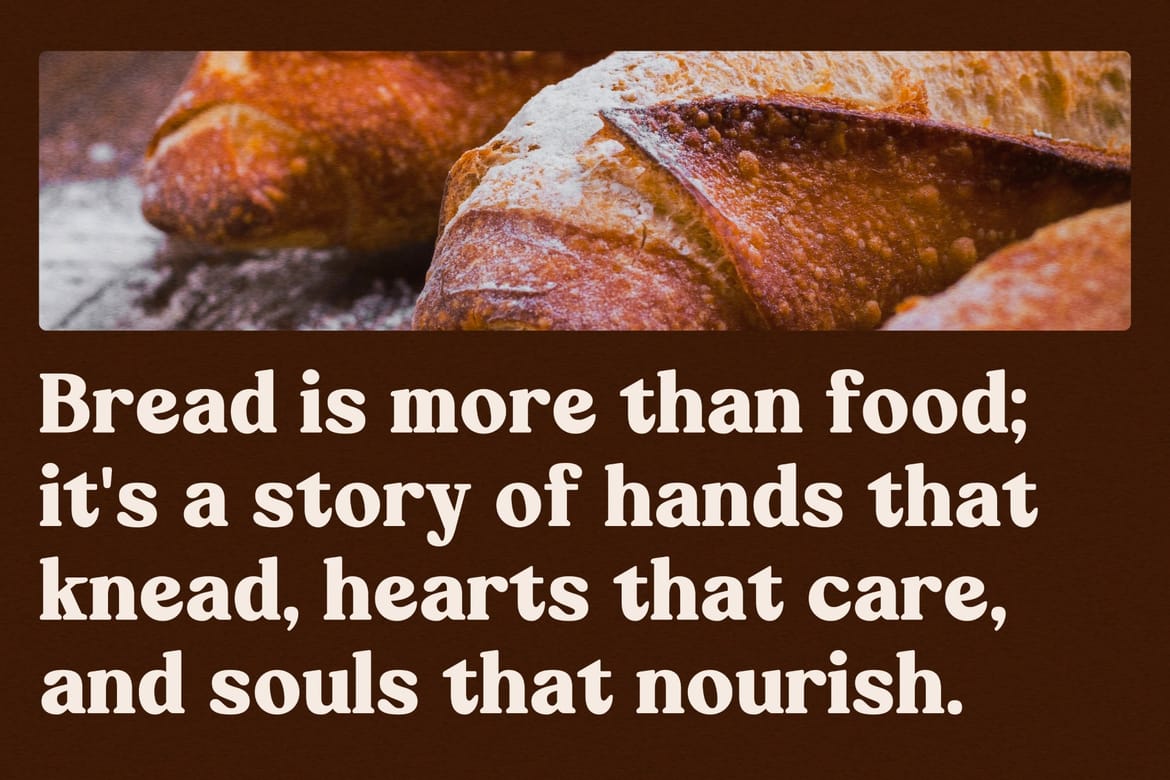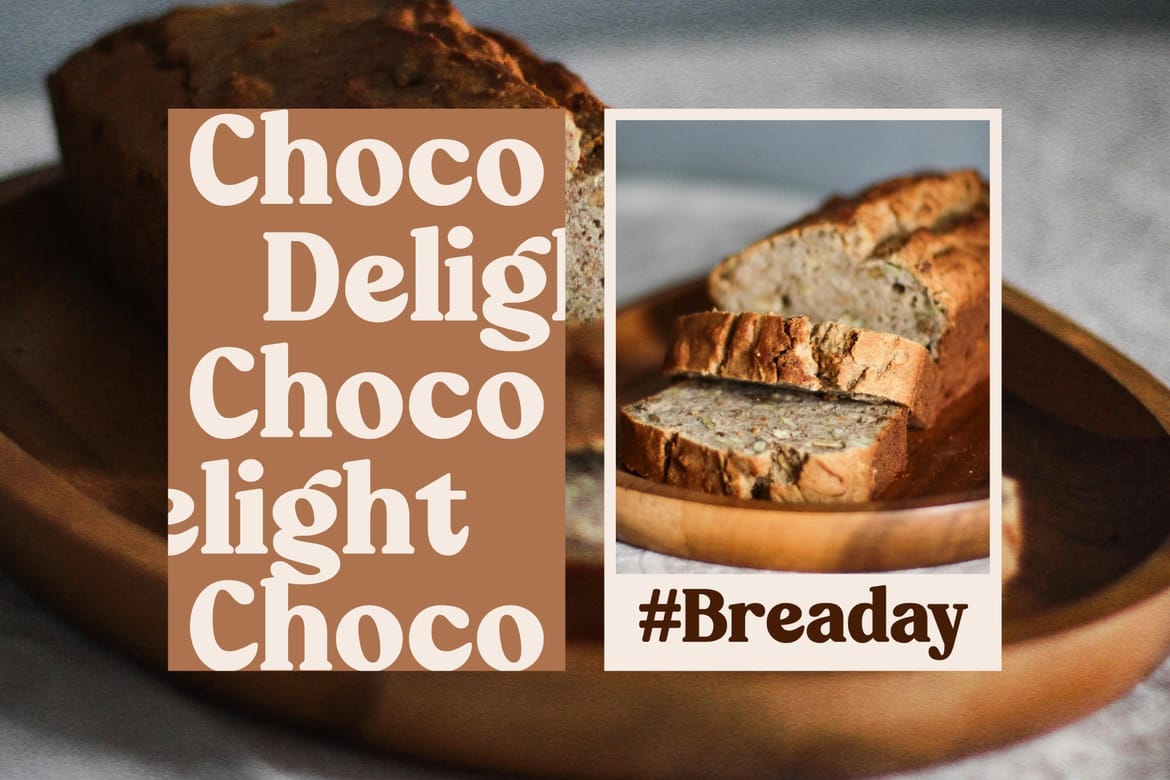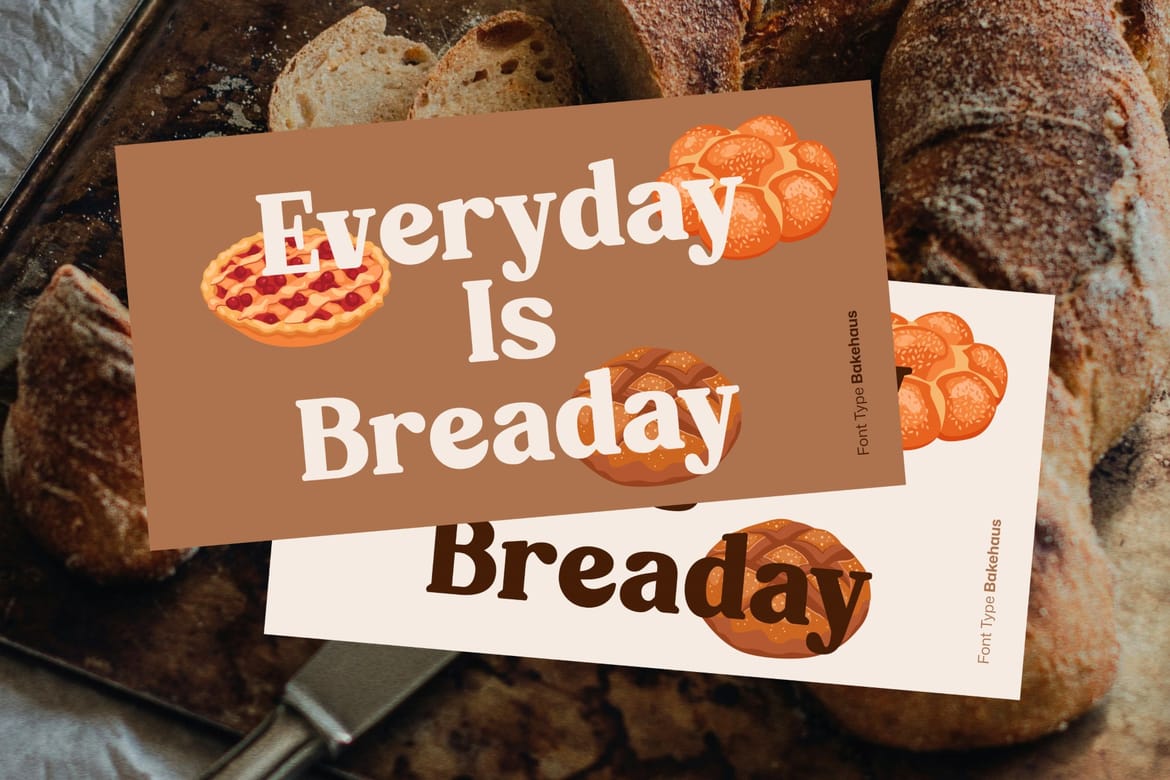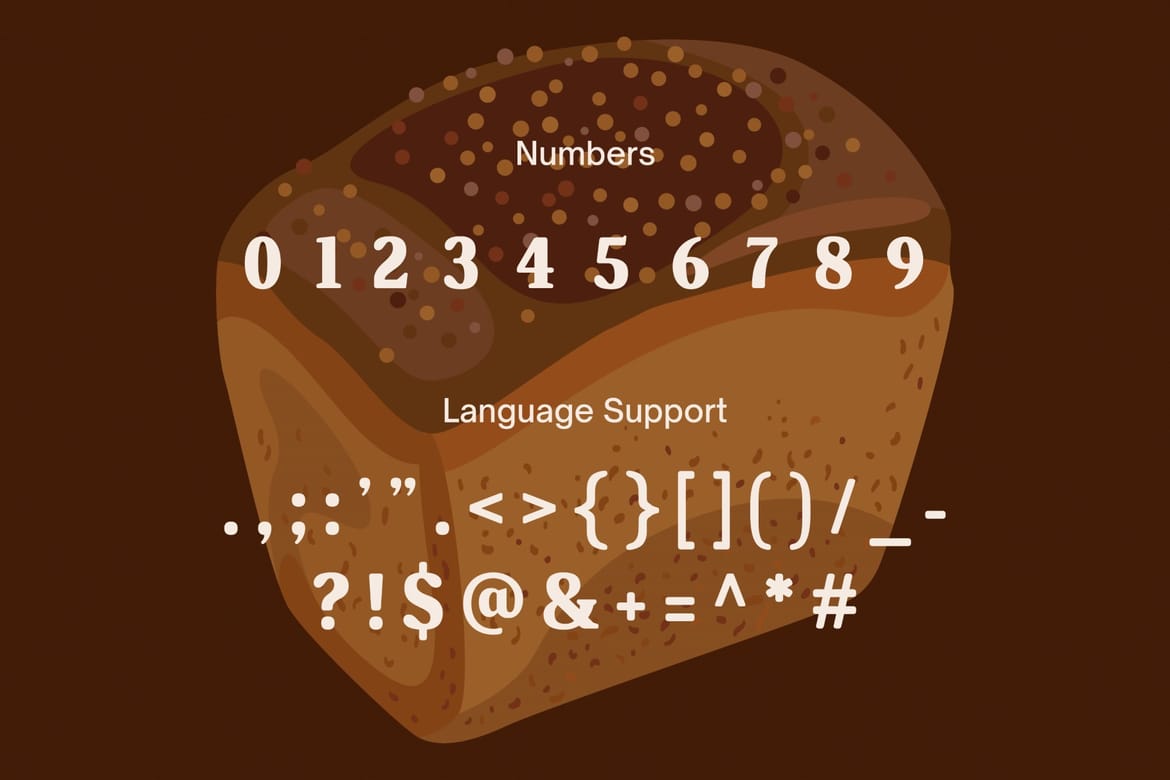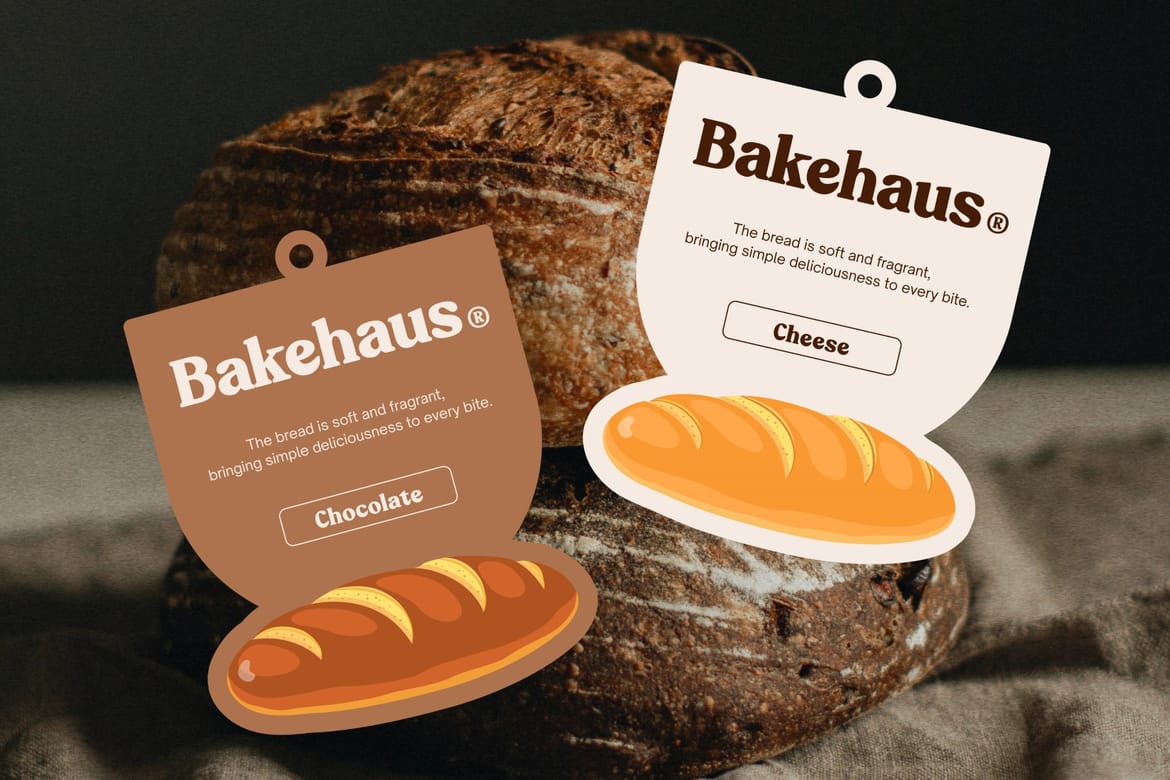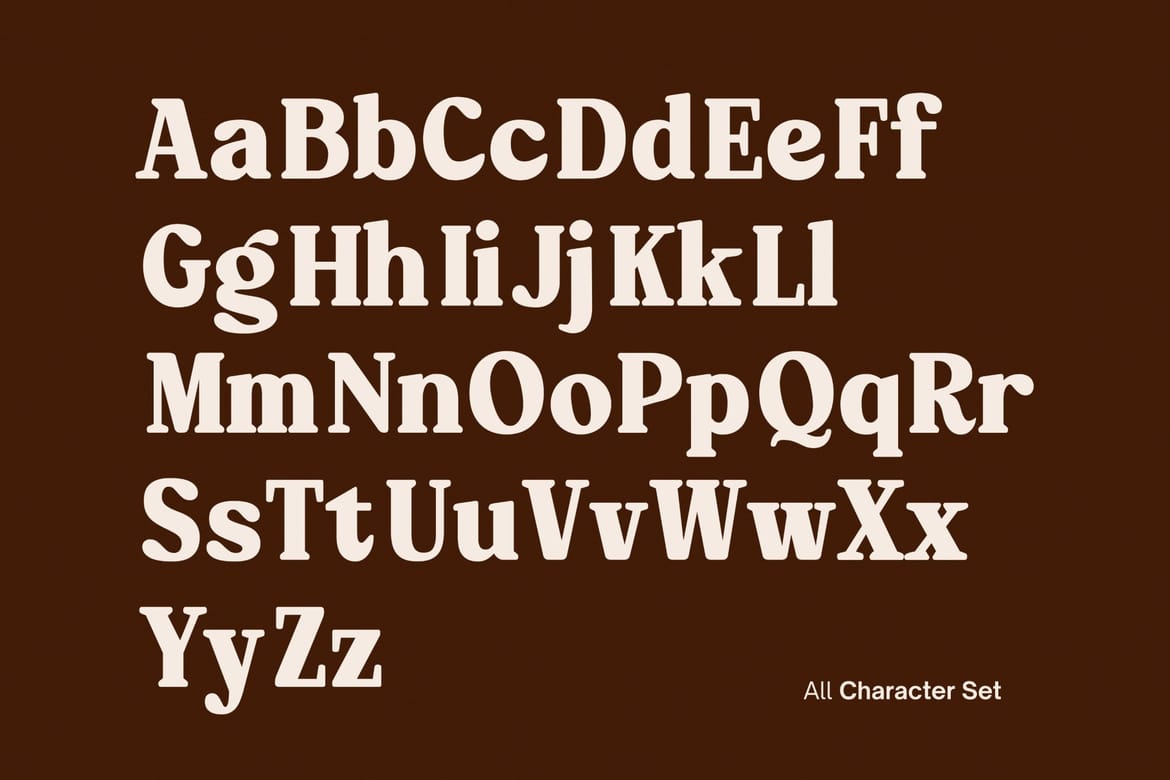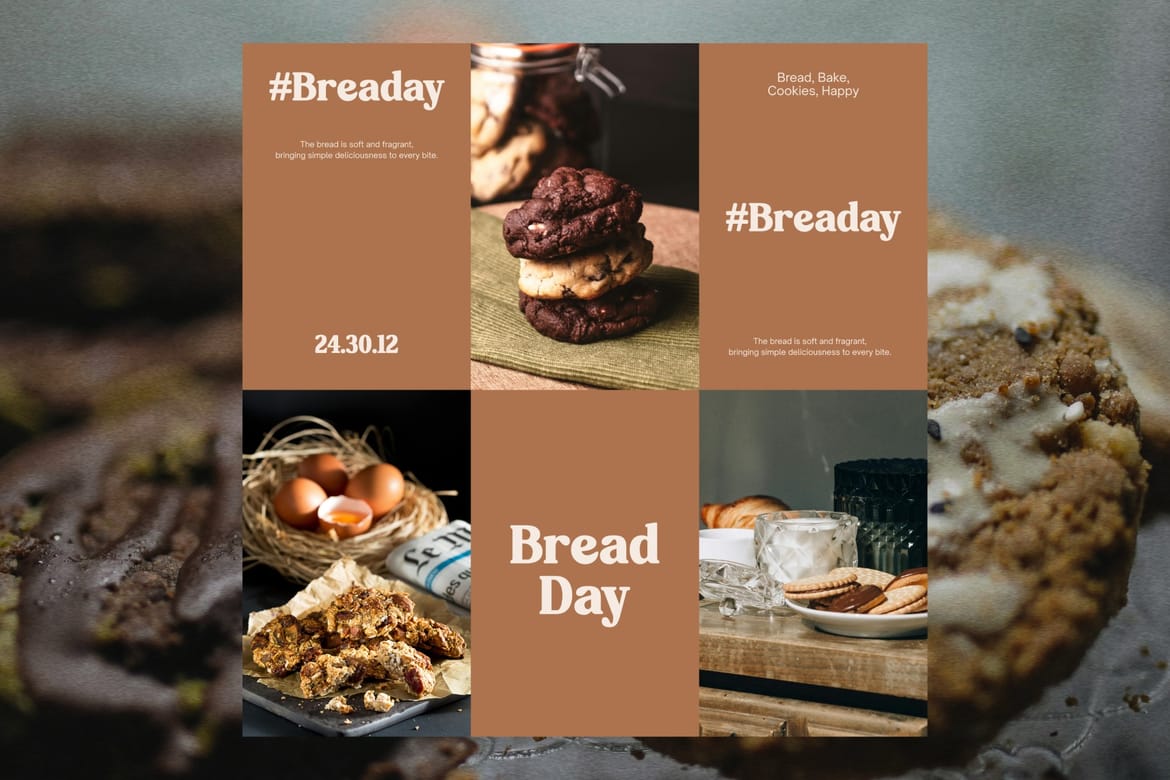
Bakehaus is a delightful retro display font that evokes the charm of old-fashioned bakeries. With its playful curves and warm character, Bakehaus is perfect for creating eye-catching logos, signage, packaging, menus, and more. Add a touch of nostalgia to your baked goods brand with Bakehaus!
Classic vintage serif with a warm artisan bakery feel
Perfect for bakery branding, café packaging, and handcrafted food identities
Soft bold curves create a premium homemade personality that feels timeless and inviting